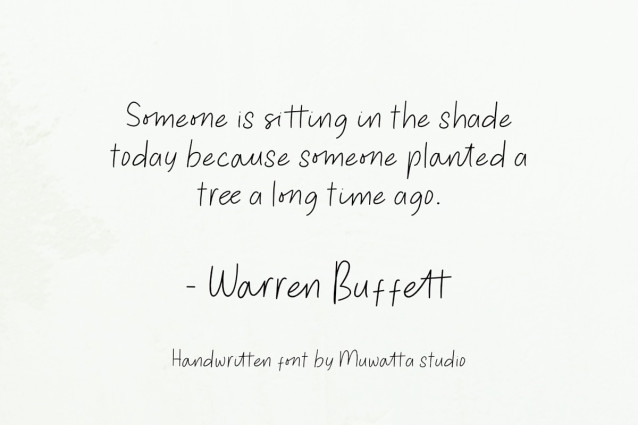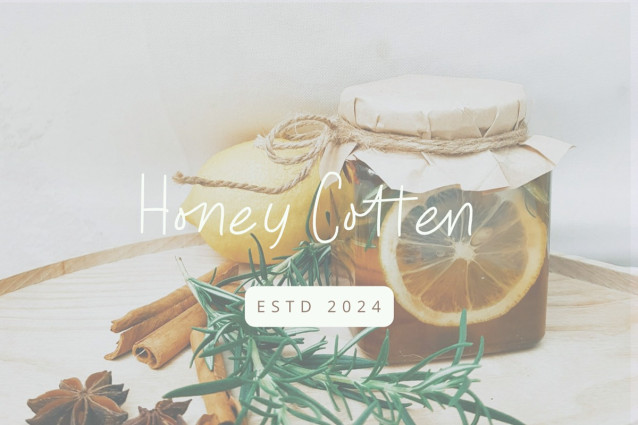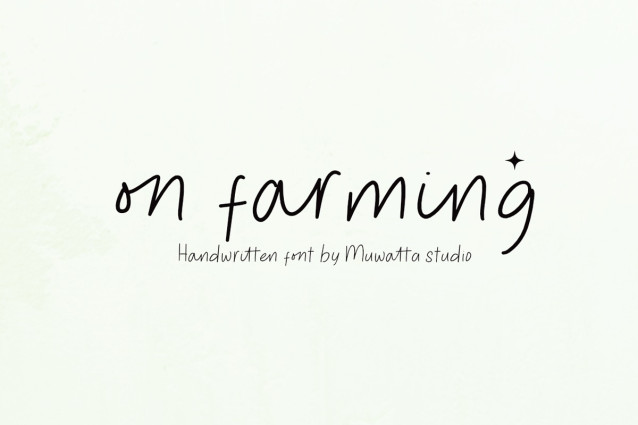
On Farming Font
On Farming Font is a beautifully crafted, romantic script designed to evoke warmth and personal charm. Its flowing, natural strokes mimic the elegance of real handwriting, making it perfect for wedding invitations, love letters, greeting cards, and creative projects that need a personal touch.